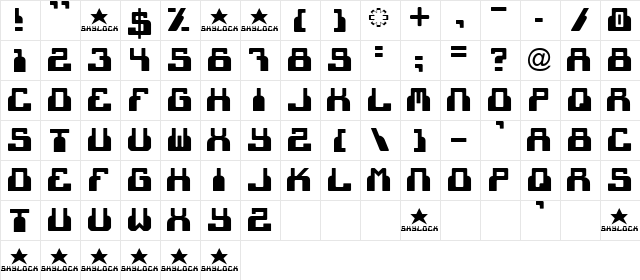
cheek2cheek (black!) by shk.dezign
Design Context for cheek2cheek (black!) Typeface
cheek2cheek (black!) is a composed and adaptable typeface that performs quietly and consistently across a wide range of design contexts.